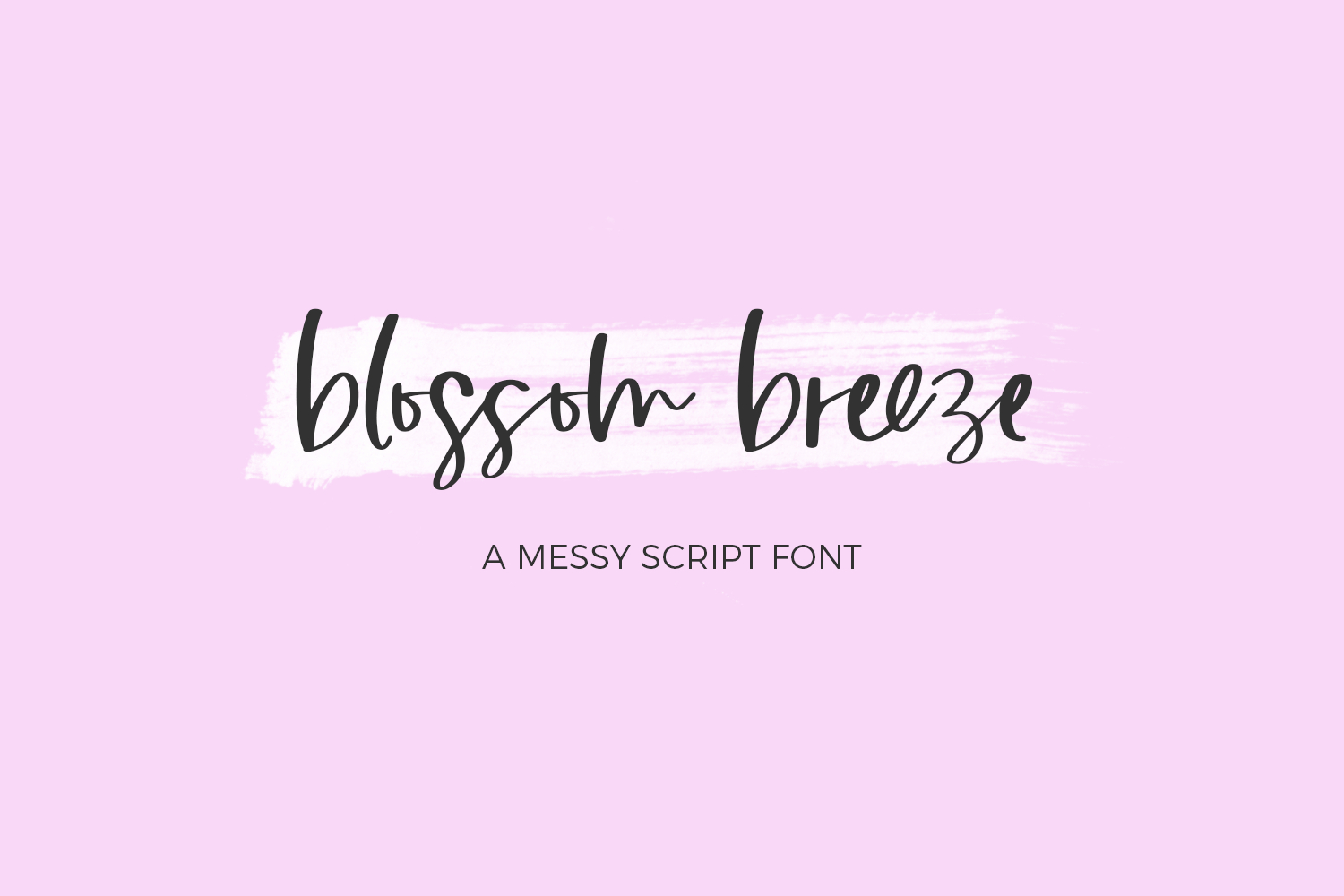
Blossom Breeze Script Font
Blossom Breeze is a modern calligraphy script. This cursive font is contemporary and casual, and is the perfect fit for logos, branding, paper products, and website elements. It can also be used for print design, social media, and marketing items. Blossom Breeze features a smooth edge, which also makes it a great fit for crafting & vinyl cutting machines for your crafty homemade designs.
Blossom Breeze includes:
- 26 double letter ligatures